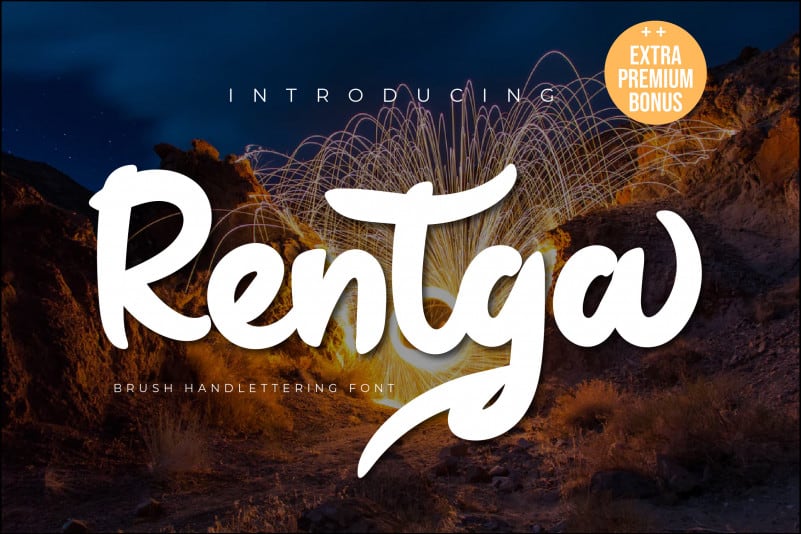
Rentga Script Font
Rentga Script Font is a modern brush display font, defined by a flowing and contemporary design. Fall in love with its incredibly versatile style and use it to create spectacular designs!